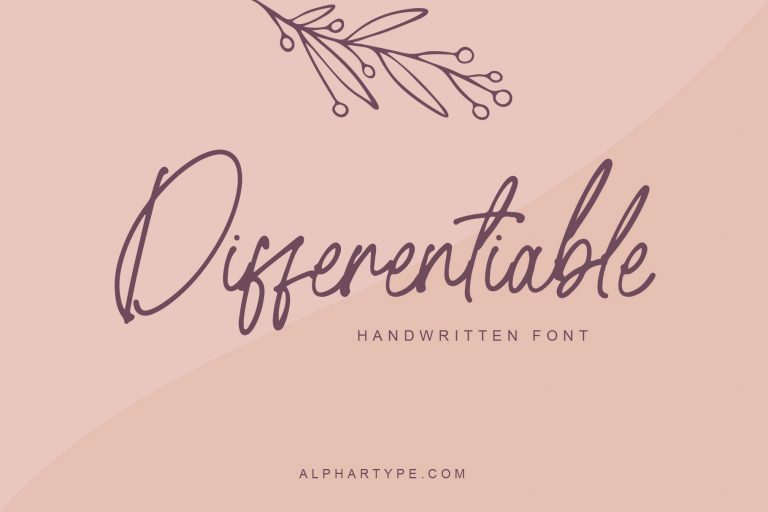
Differentiable Handwritten Font Freebie!
Want to emphasise a unique character or design in your project? We have the perfect solution for that. The Differentiable Handwritten Font Freebie has a charming & organic quality about it, making it one of the best handwritten fonts.
This font includes uppercase and lowercase letters, ligatures, multilingual support, numbers, and punctuation. It can be used for a variety of purposes, including logos, quotes, Instagram posts, invitations, magazines, cards, product packaging, headers, and more, as your imagination allows.